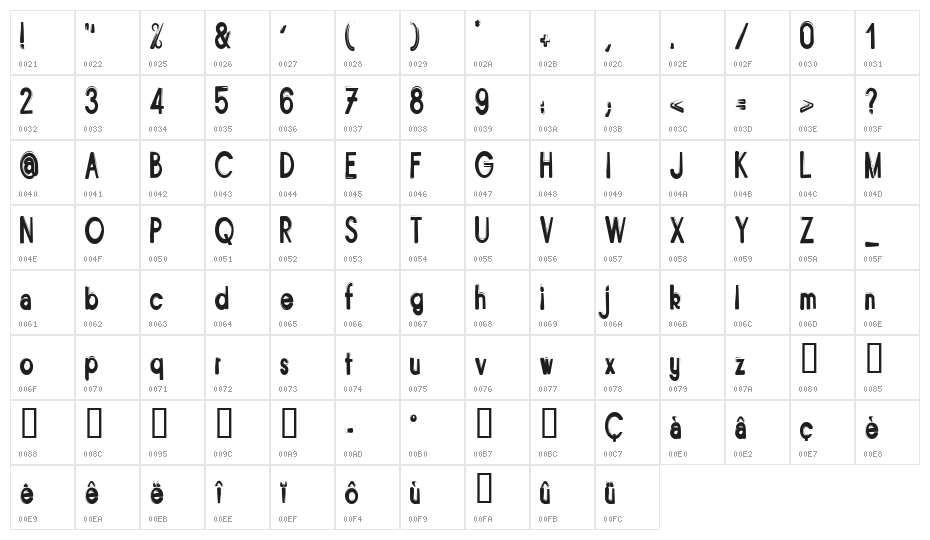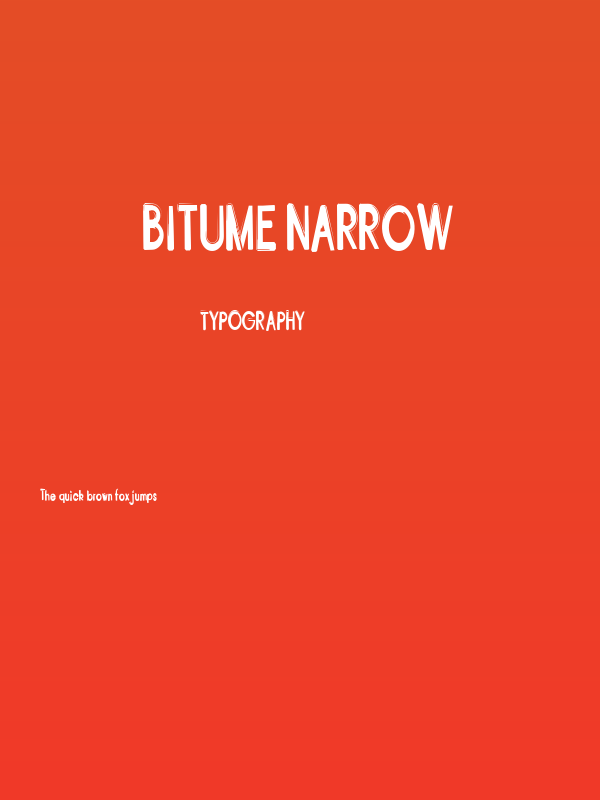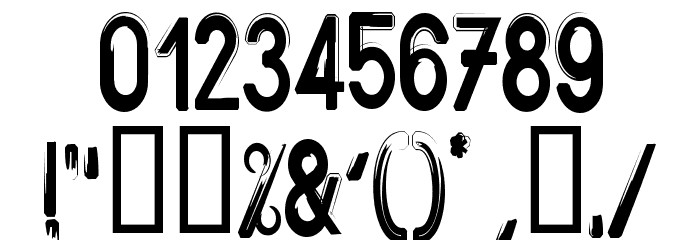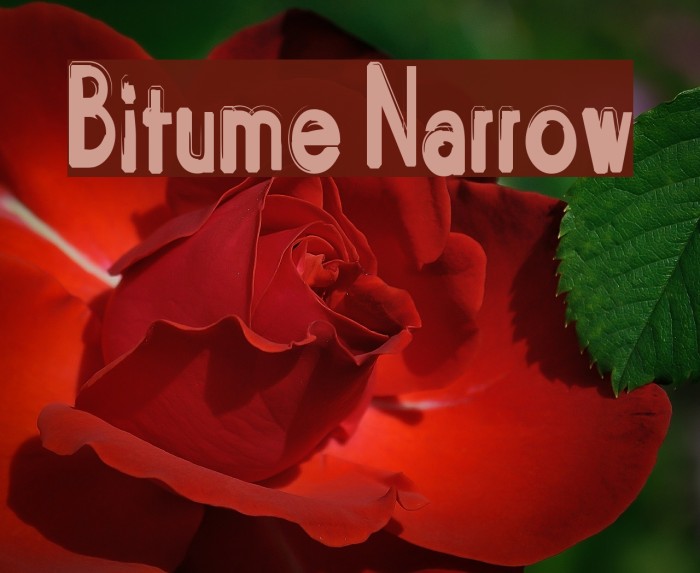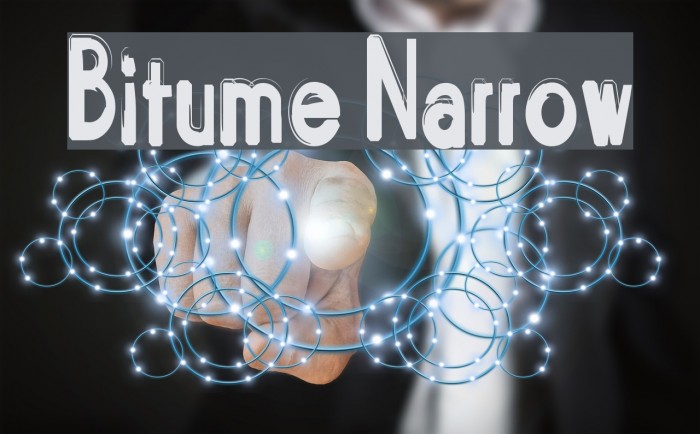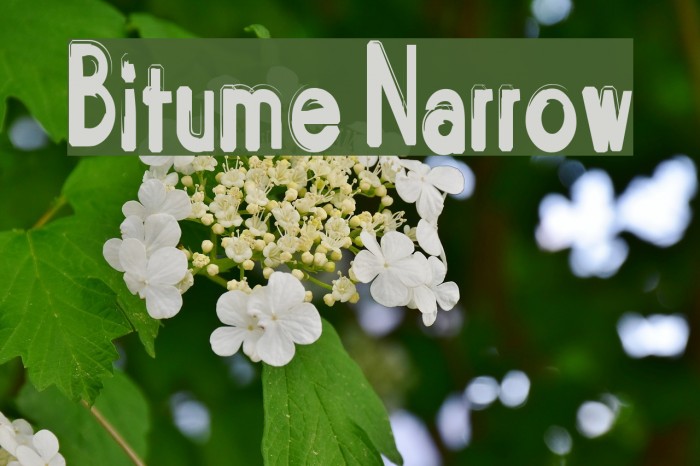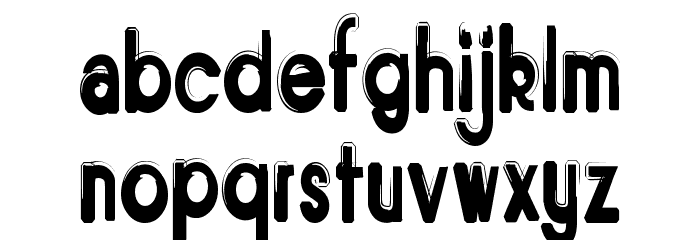
Bitume Narrow Font
Bitume Narrow Description
This font features a bold and impactful style with a narrow width, creating a striking visual presence. The uppercase and lowercase letters are designed with a consistent stroke weight, providing a uniform appearance. The characters have a modern and clean look, with slightly rounded edges that soften the overall aesthetic. The numbers are equally bold, maintaining the same width and weight as the letters, ensuring consistency across all characters. Special characters are included, each designed to match the bold and narrow style of the font. The font's design is versatile, making it suitable for various applications where a strong and modern typeface is desired.
| Proposed Projects | Ideal for headlines, posters, branding, and advertising where a strong visual impact is needed. |